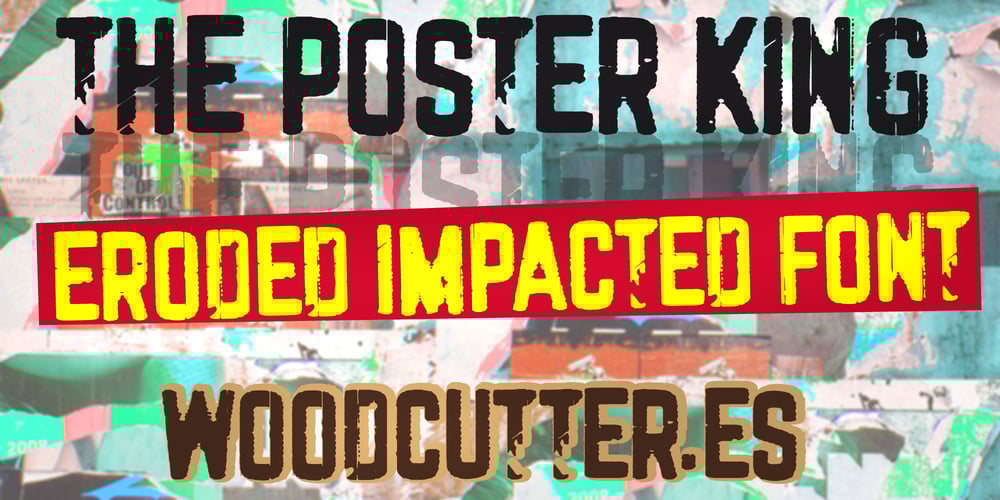
The Poster King
The Poster King font
The Poster King Font Family was designed by Jordi Manero and published by Woodcutter. The Poster King contains 1 styles and family package options. “The Poster King” is an uppercase font that combines a solid style with a worn-out finish, full of scratches and imperfect details. Each letter appears to have undergone rough treatment, giving it a rugged and deteriorated look, ideal for designs that aim to convey strength and character. Its robust structure balances with the feeling of wear, creating an appealing visual contrast. Perfect for graphic projects that need a striking and eye-catching touch, such as posters, covers, or titles requiring a commanding and powerful presence.